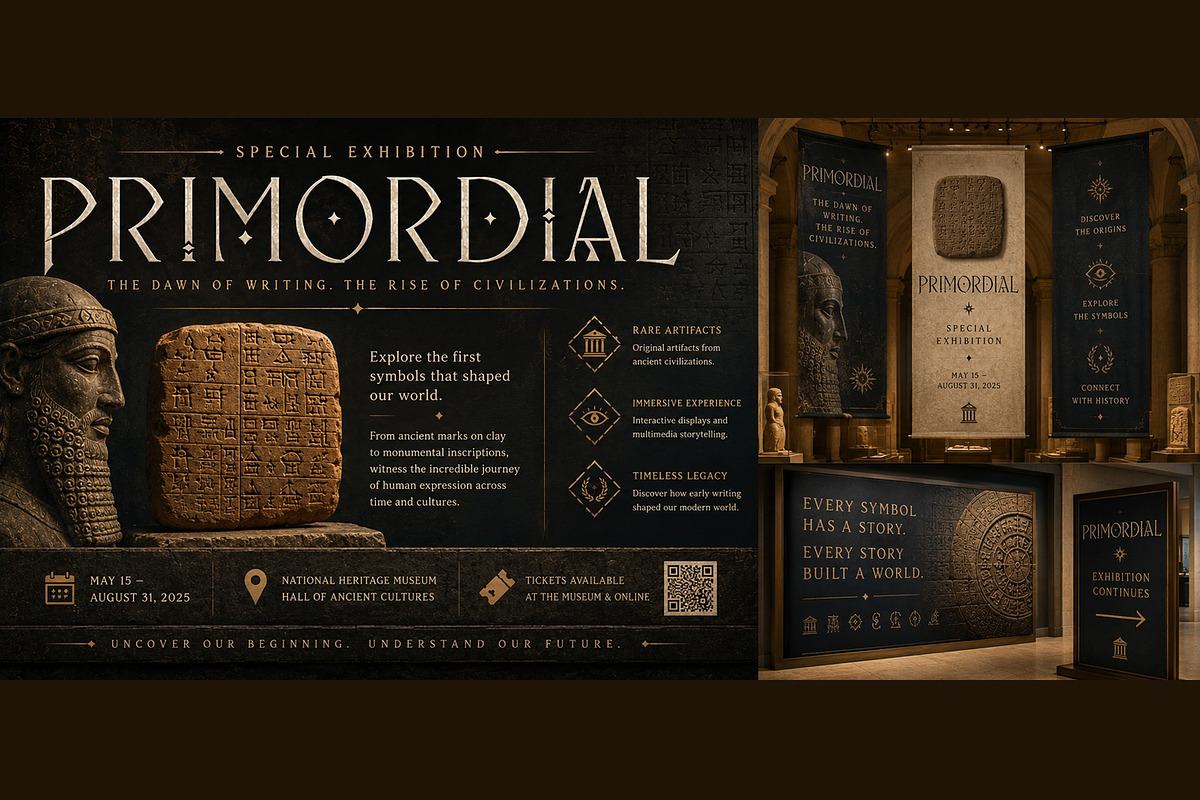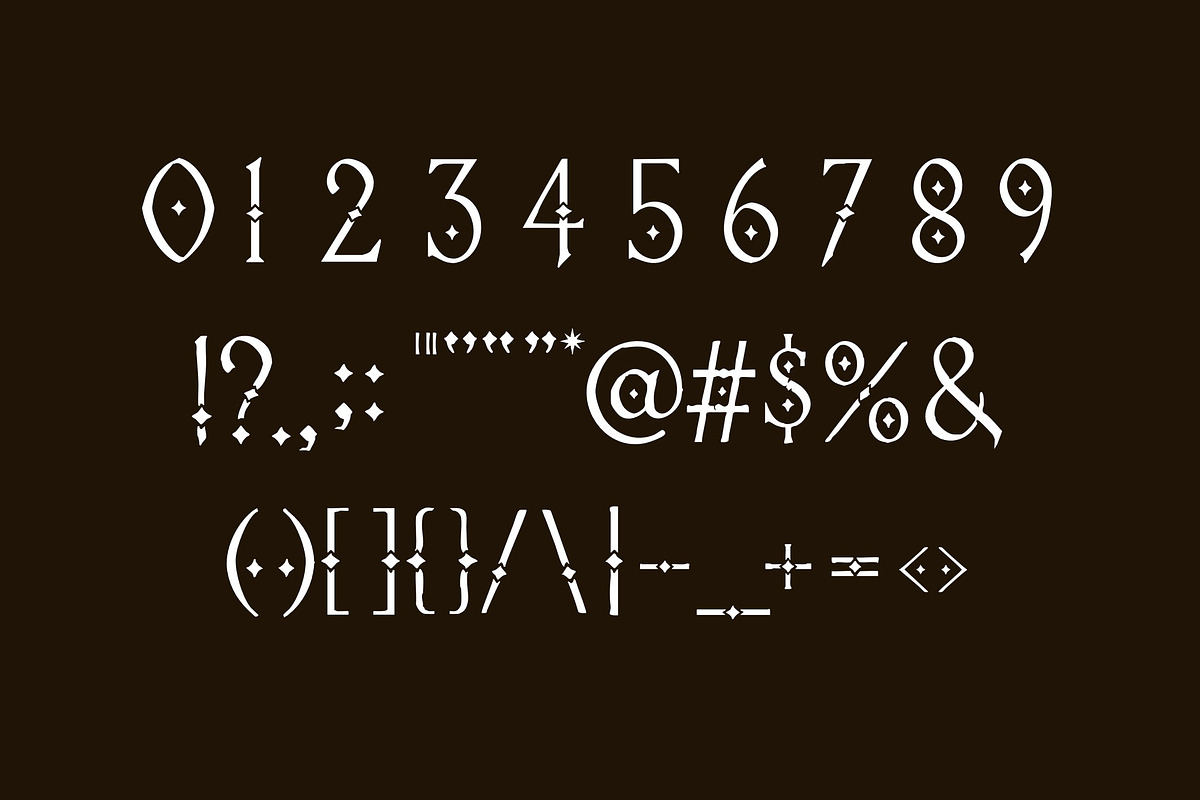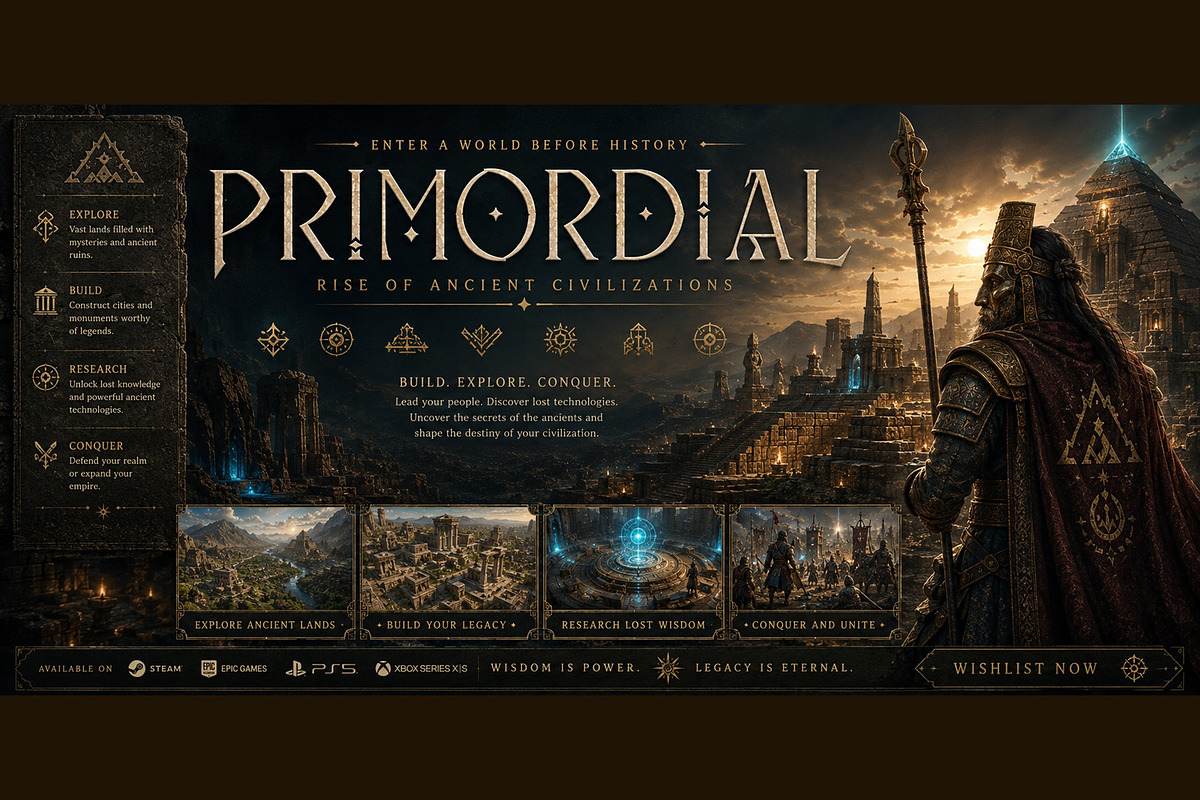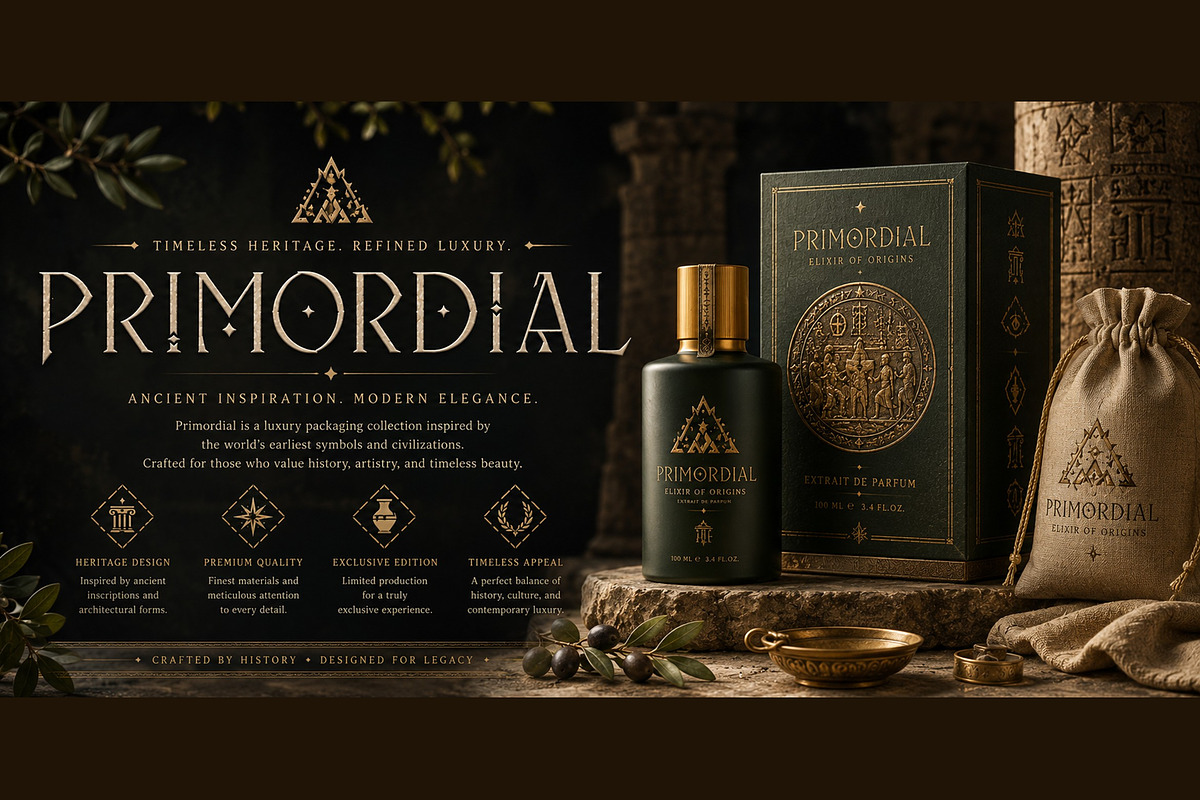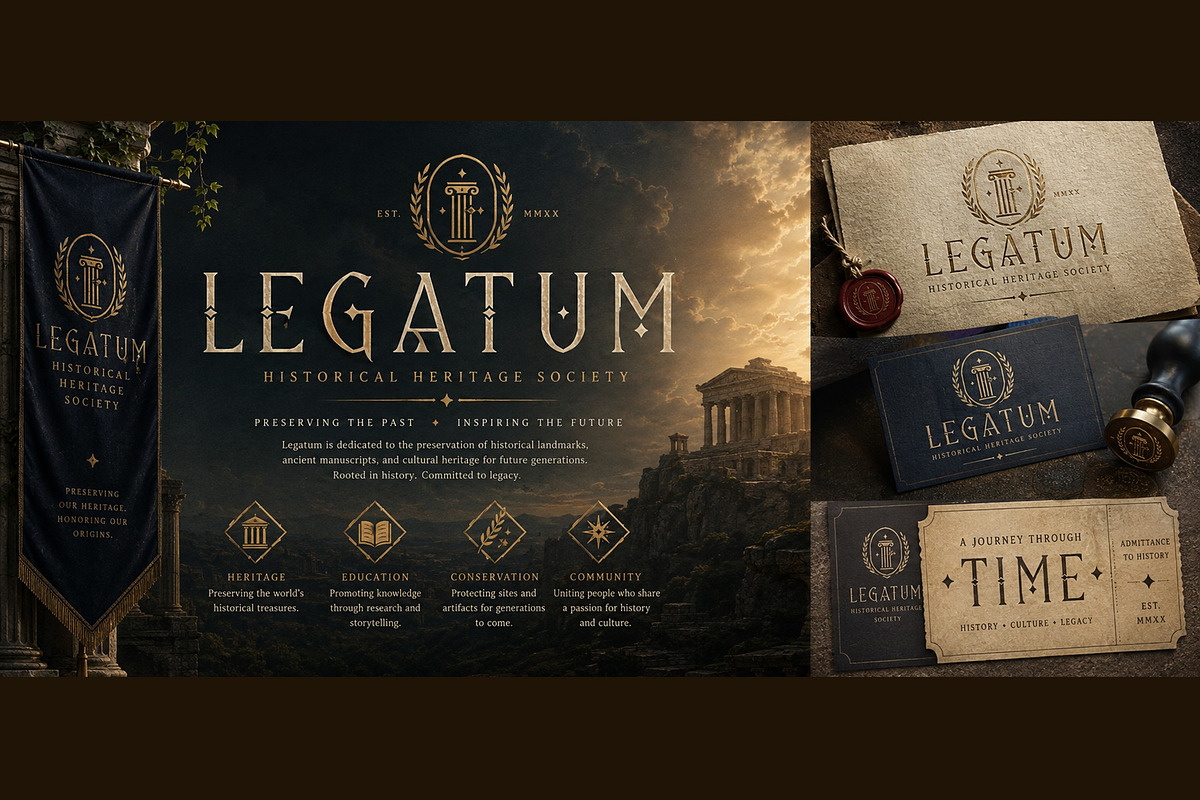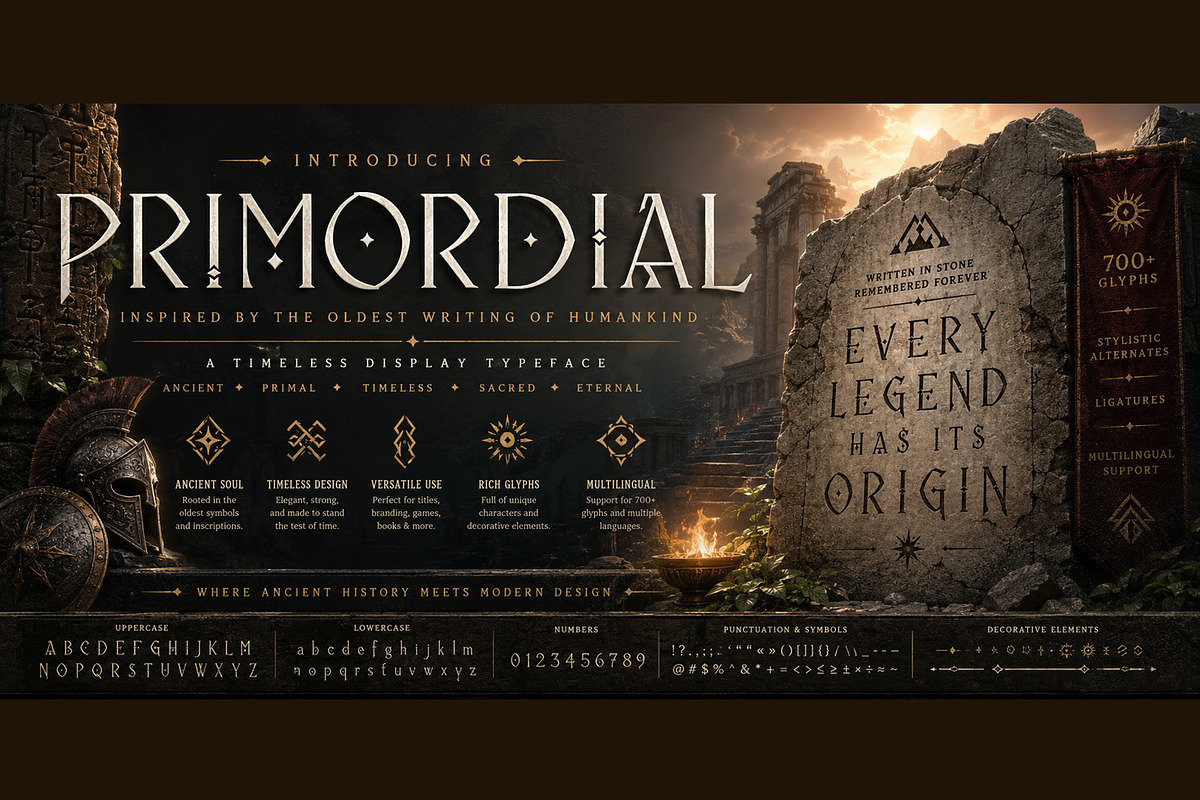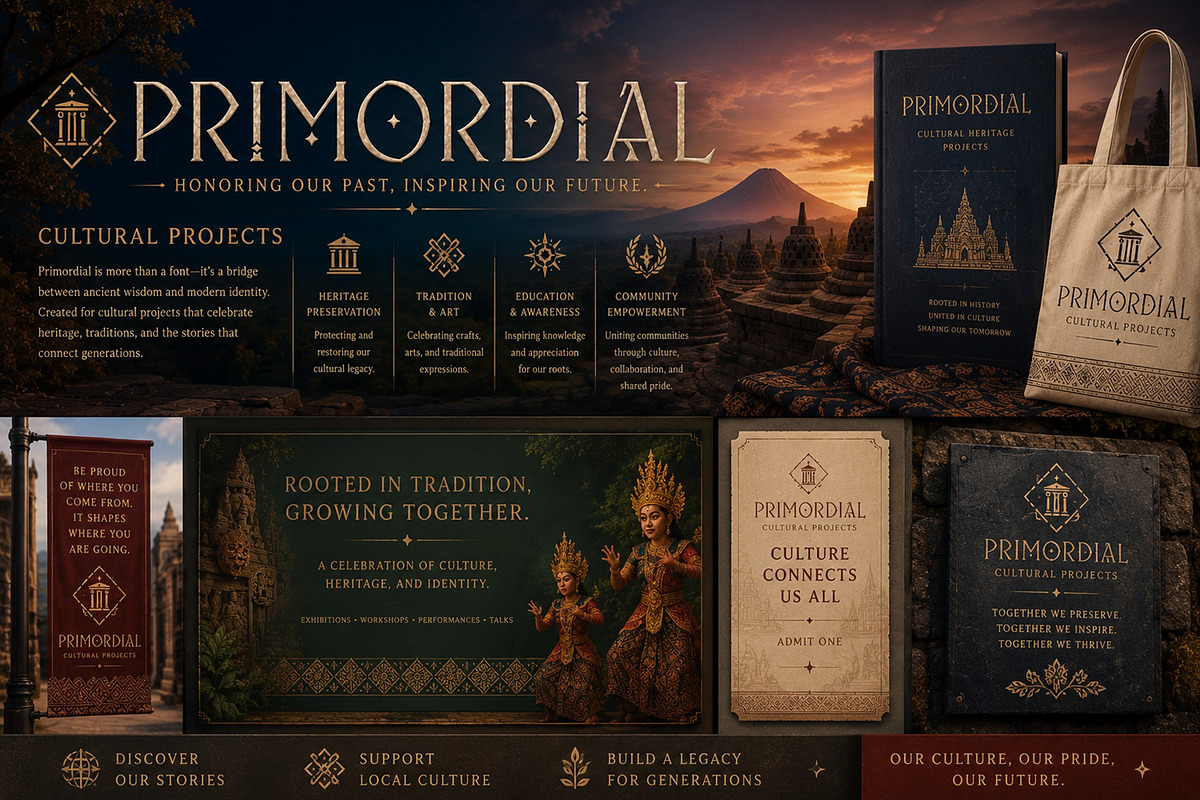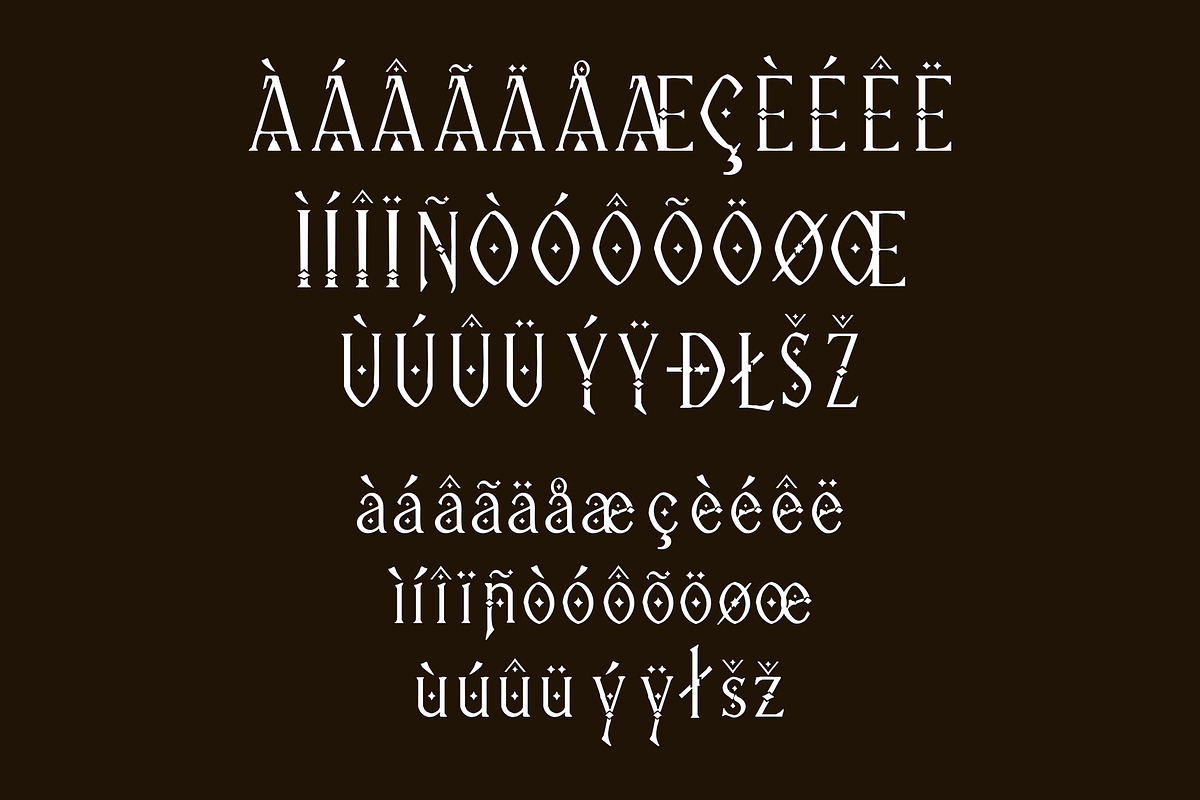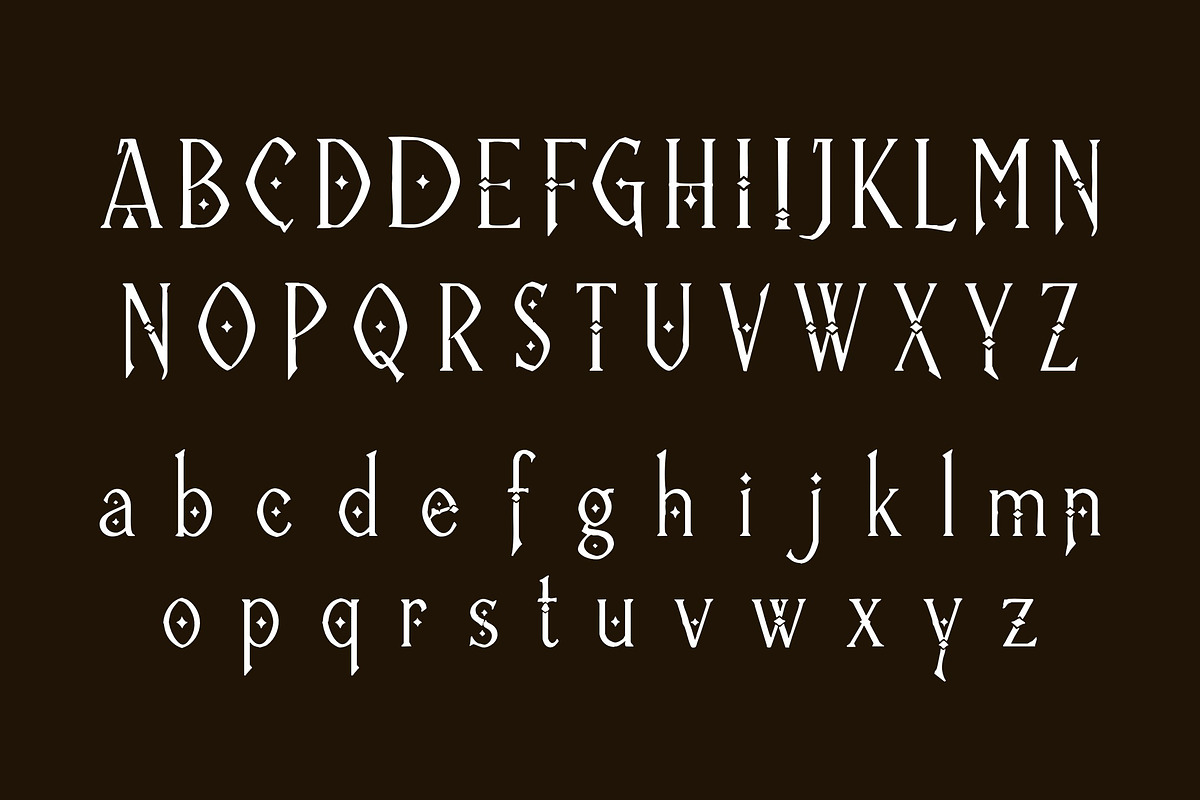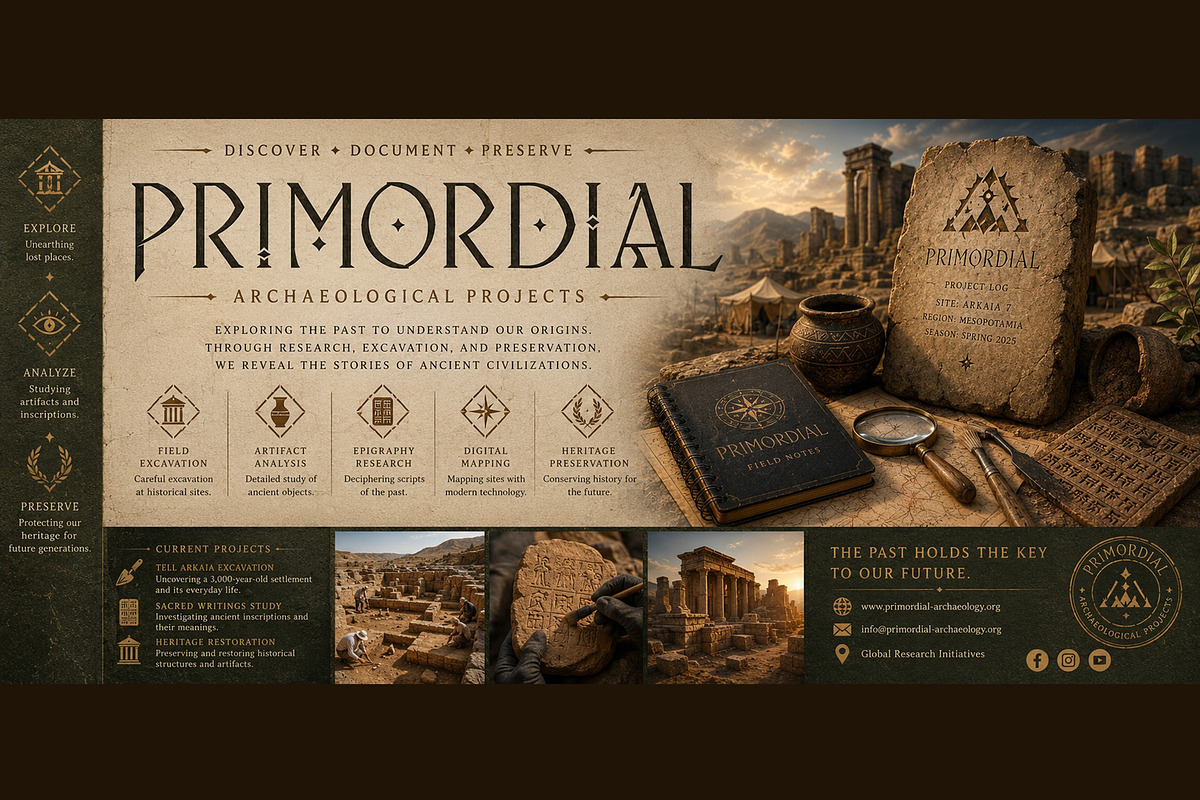
Primordial
Primordial is a timeless display typeface inspired by the earliest forms of human writing, ancient inscriptions, carved symbols, and forgotten civilizations. Its slender monumental letterforms combine sharp geometric construction with distinctive diamond-shaped details, giving the typeface an atmosphere that feels ancient, mysterious, sacred, and eternal.
Designed to bridge primitive symbolism and contemporary typography, Primordial works beautifully for historical branding, museum exhibitions, archaeological projects, fantasy titles, mythology books, ancient-themed games, cinematic posters, luxury packaging, editorial design, album covers, and cultural projects.